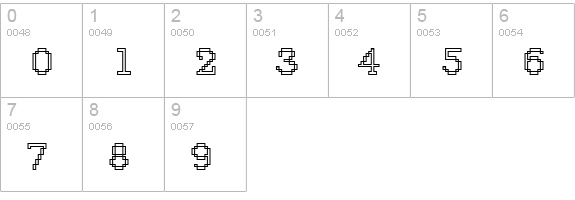
Rough13-Bold is a strong, high-contrast variant in the Rough13 typeface family \xE2\x80\x94 well suited to headlines, attention-grabbing titles, and strong calls-to-action.
Rough13-Bold font is a striking and bold typeface that exudes a sense of strength and confidence. Its rugged edges and bold lines give it a rough and edgy appearance, making it perfect for adding a bold statement to your designs. Whether you're looking to create eye-catching headlines, posters, or branding materials, Rough13-Bold font is sure to make a powerful impact. And the best part? Rough13-Bold font is completely free to download at FontsMarket.com! So go ahead and add this dynamic font to your collection without breaking the bank. Let your creativity run wild with Rough13-Bold font and make your designs stand out from the crowd.